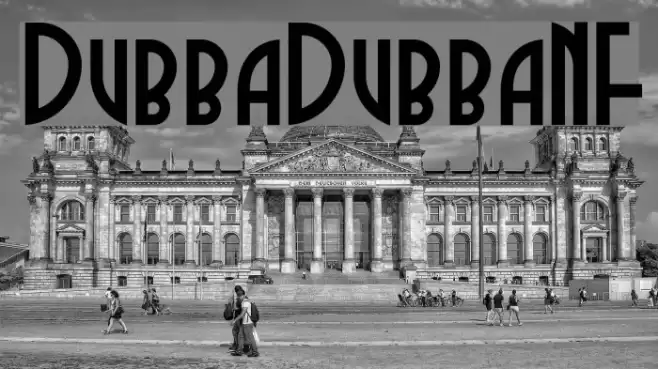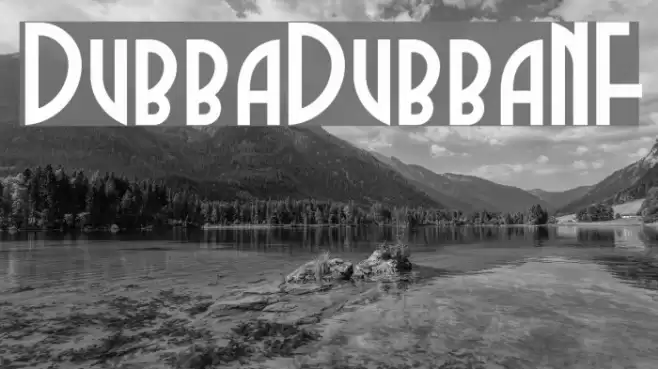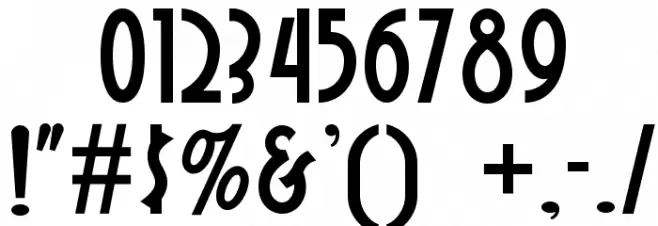
DubbaDubbaNF Font
DubbaDubbaNF Description
This font features a bold and striking design with a strong geometric influence. The characters are tall and narrow, with a distinct Art Deco flair. The uppercase letters have a unique angularity, while the lowercase letters maintain a consistent style that complements the uppercase. The numbers are equally bold, ensuring readability and impact. Special characters are designed with the same attention to detail, making them stand out. This font is perfect for creating eye-catching headlines or logos that require a touch of vintage elegance.
A bold, geometric font with Art Deco influences, ideal for striking headlines from Uncategorized fonts.
- Proposed Projects: This font is perfect for branding projects, vintage-themed posters, and any design work that requires a bold, eye-catching typeface. It can also be used in editorial design for magazine covers or feature spreads.
- Overall Style: Vintage